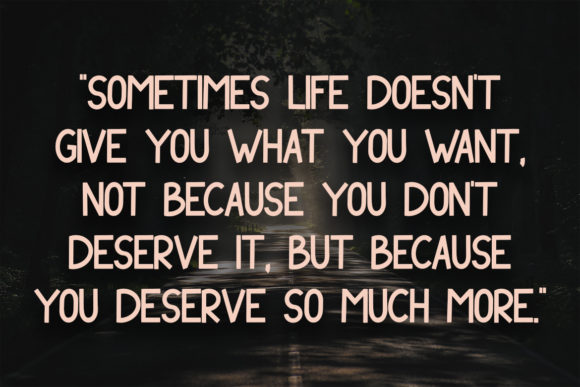
Throll Font
Throll is a modern and assertive sans serif font. Fall in love with its incredibly versatile style and use it to create spectacular designs!